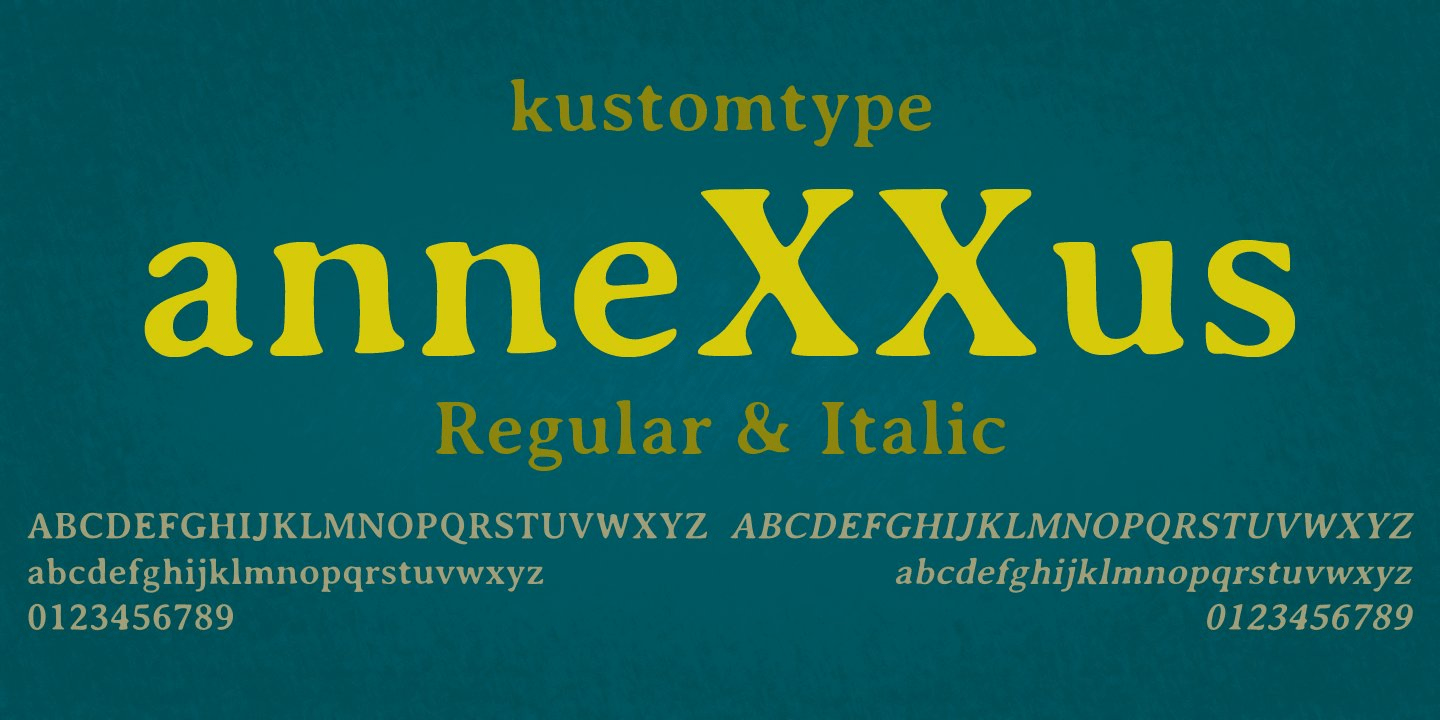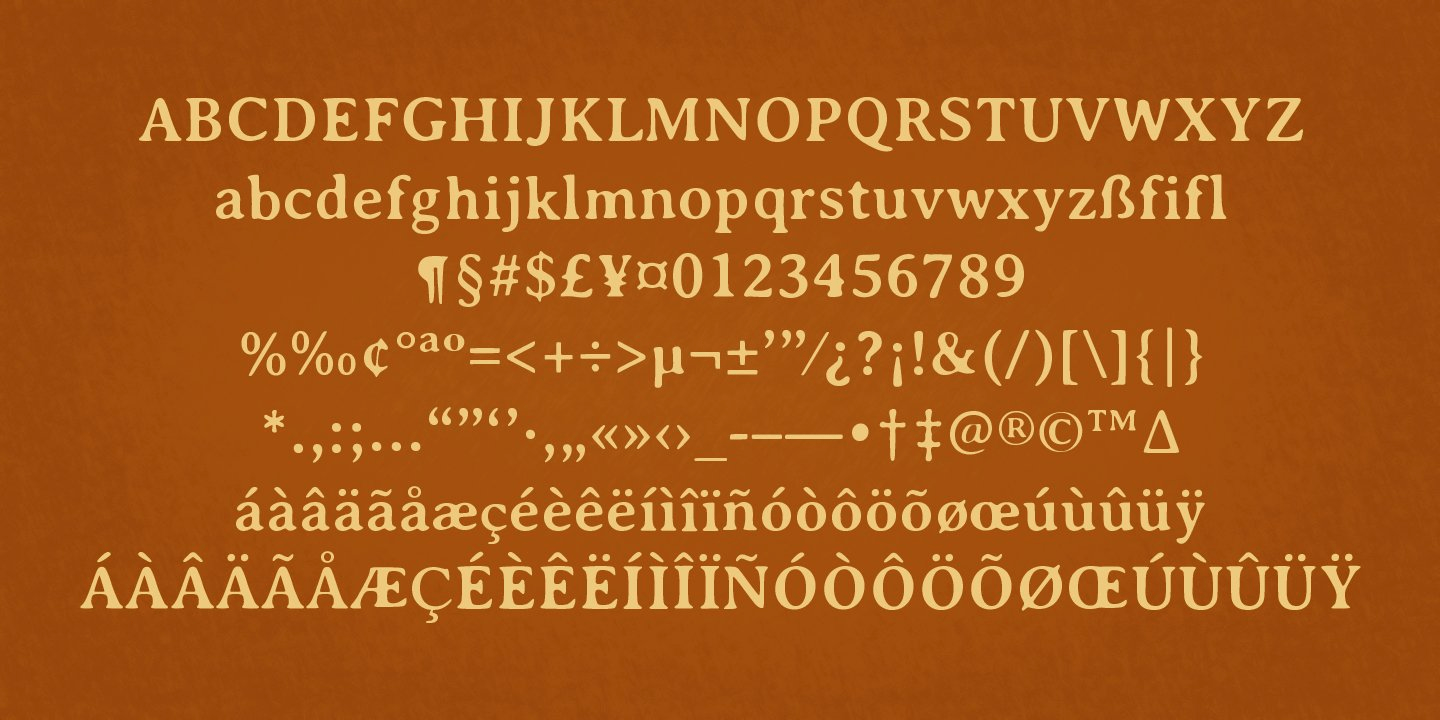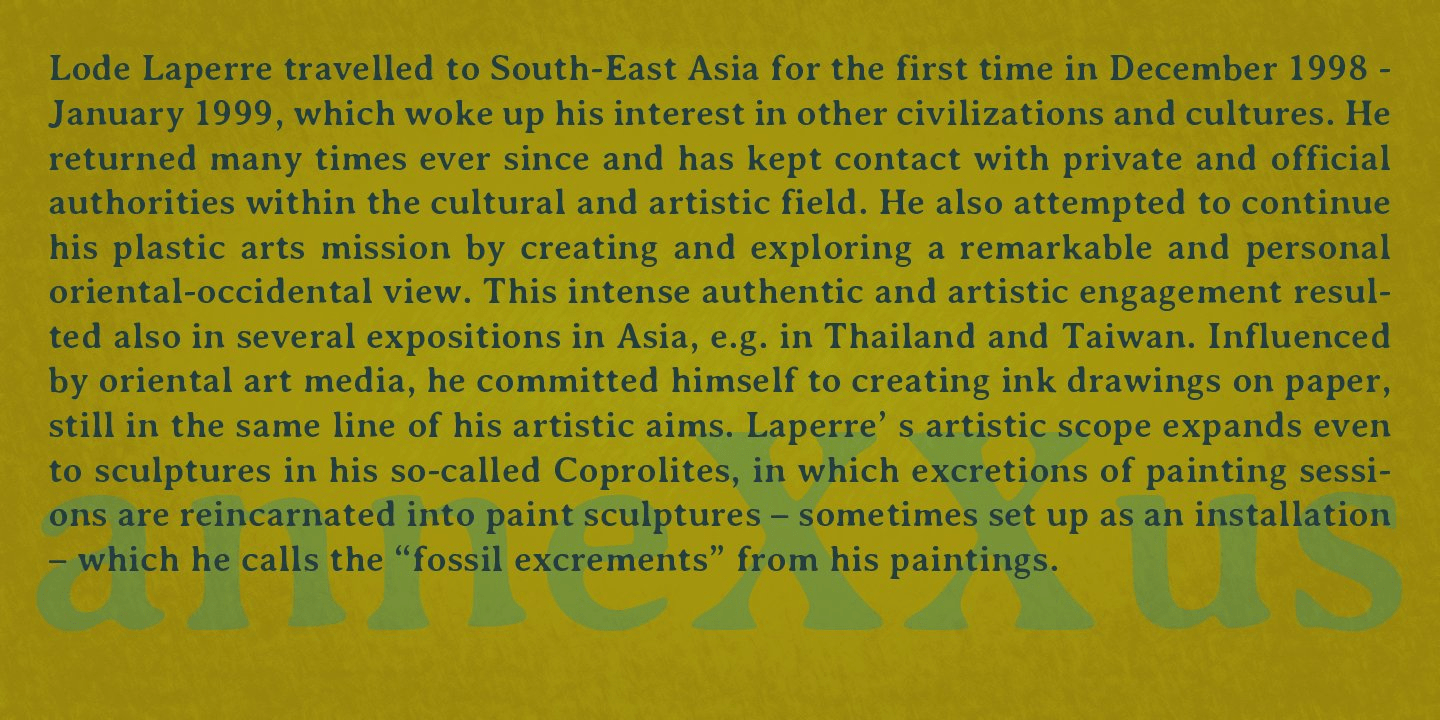
Annexxus
Font Family by Kustomtype
The 'Annexxus' family is coordinated into letterforms, metrics, and weights to work better together.
Why still looking for old school types for your posters, text, design, artwork, headtext, editoral design, magazines, etc.?
Dress up your graphic work with 'Annexxus!
A good font does not have to be perfect to be wonderful!